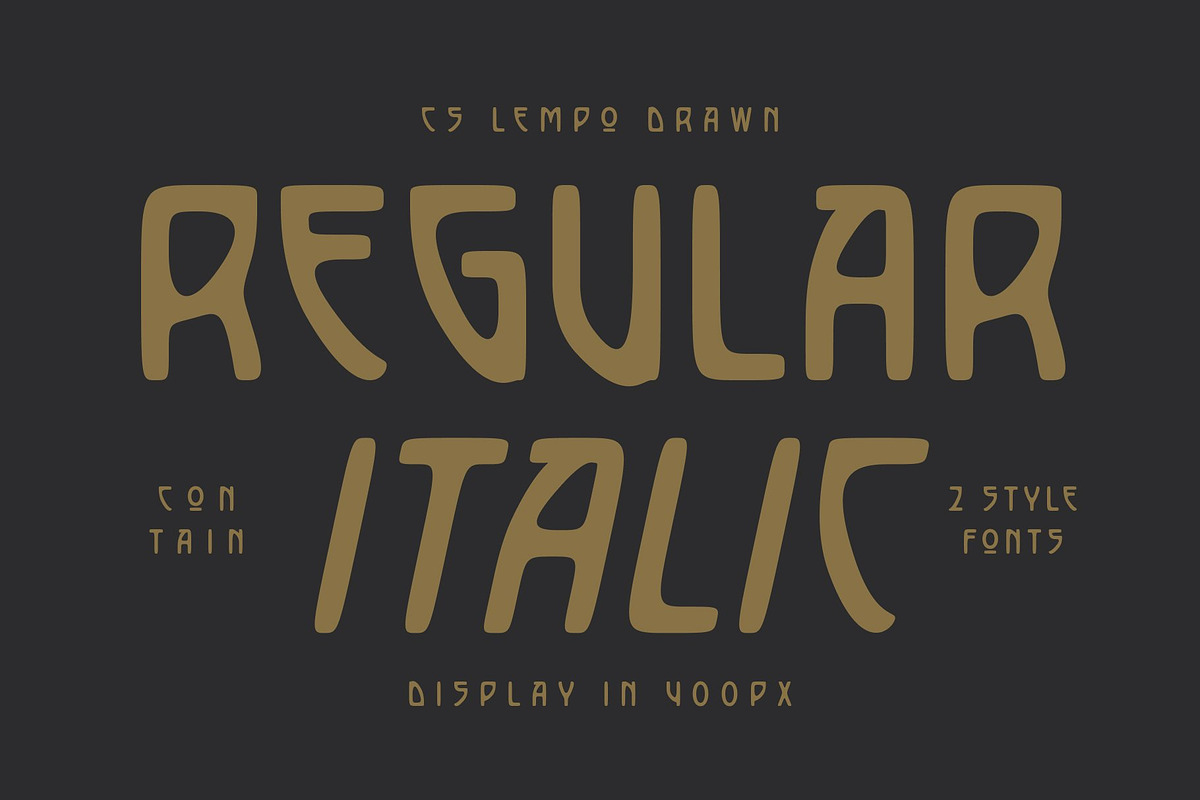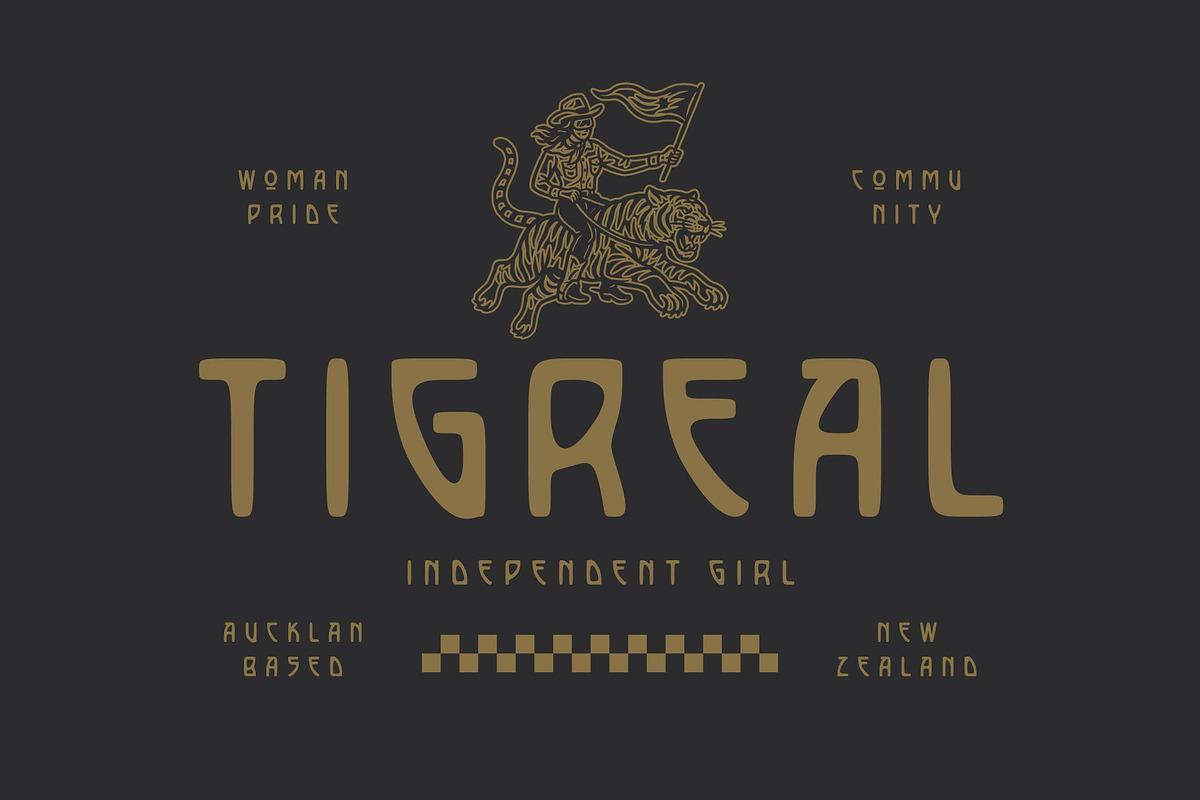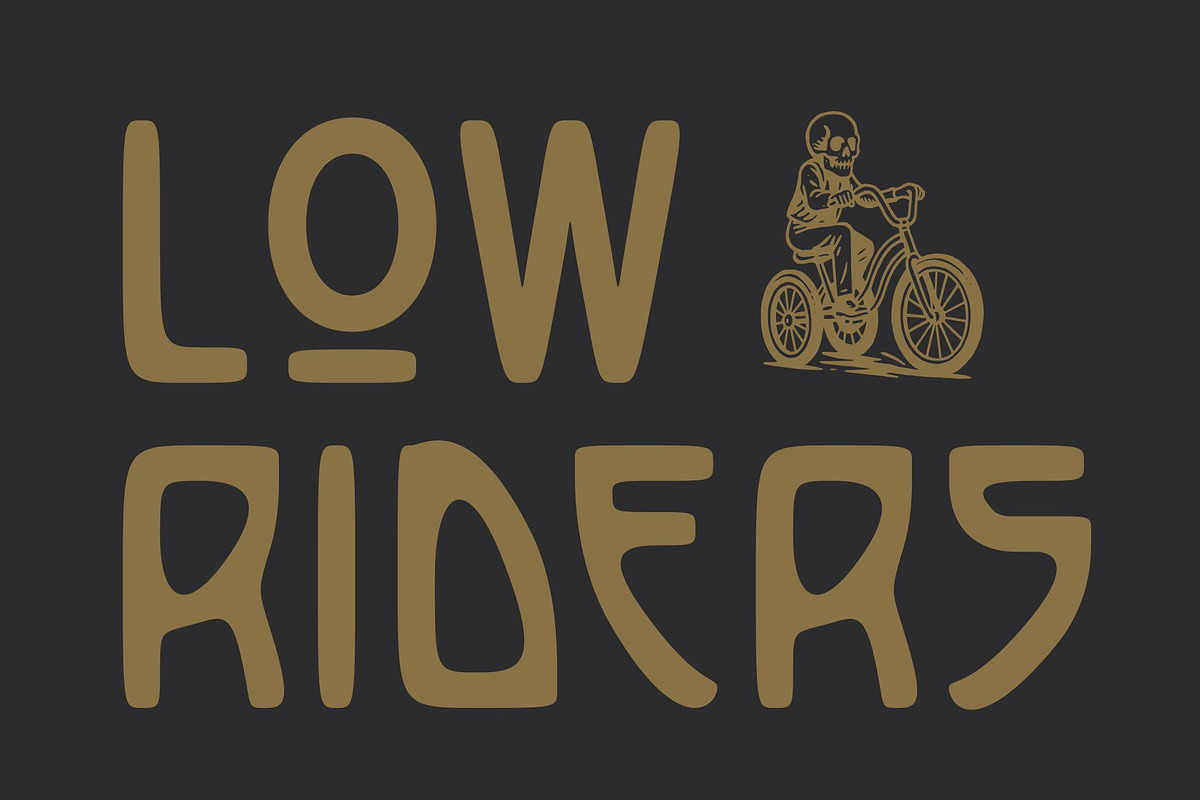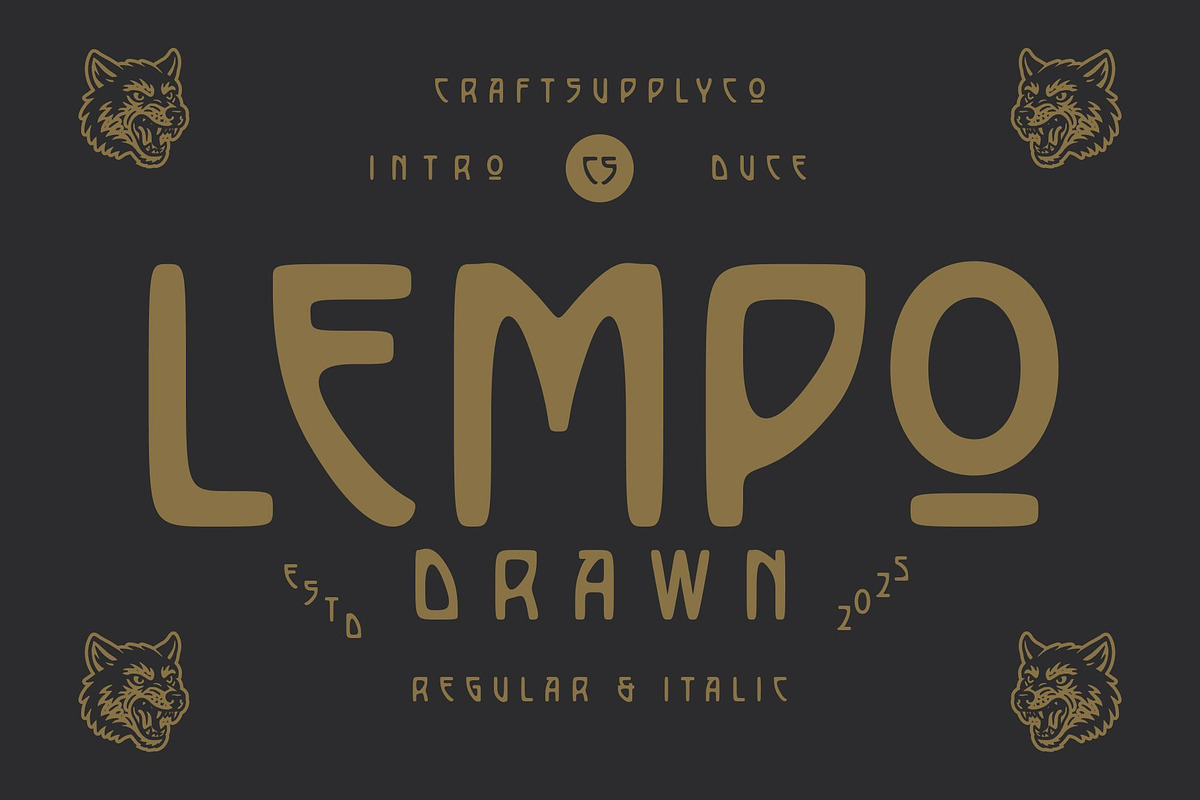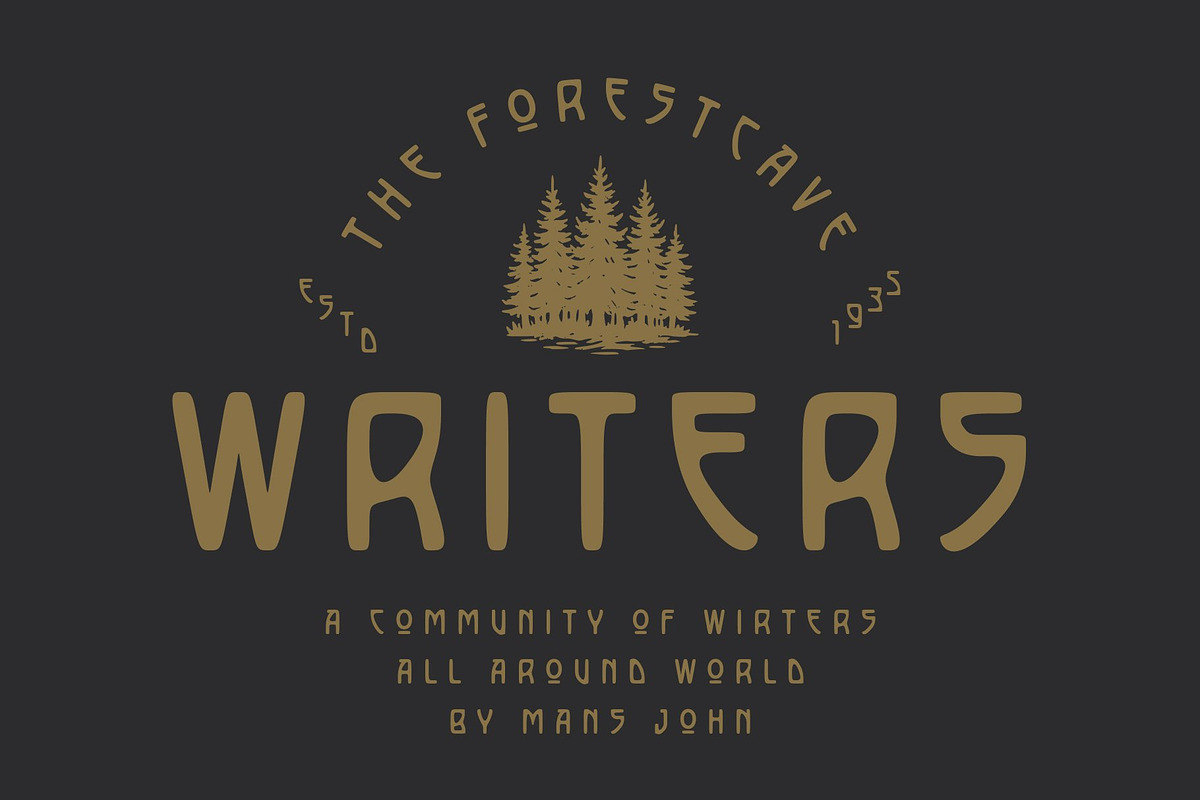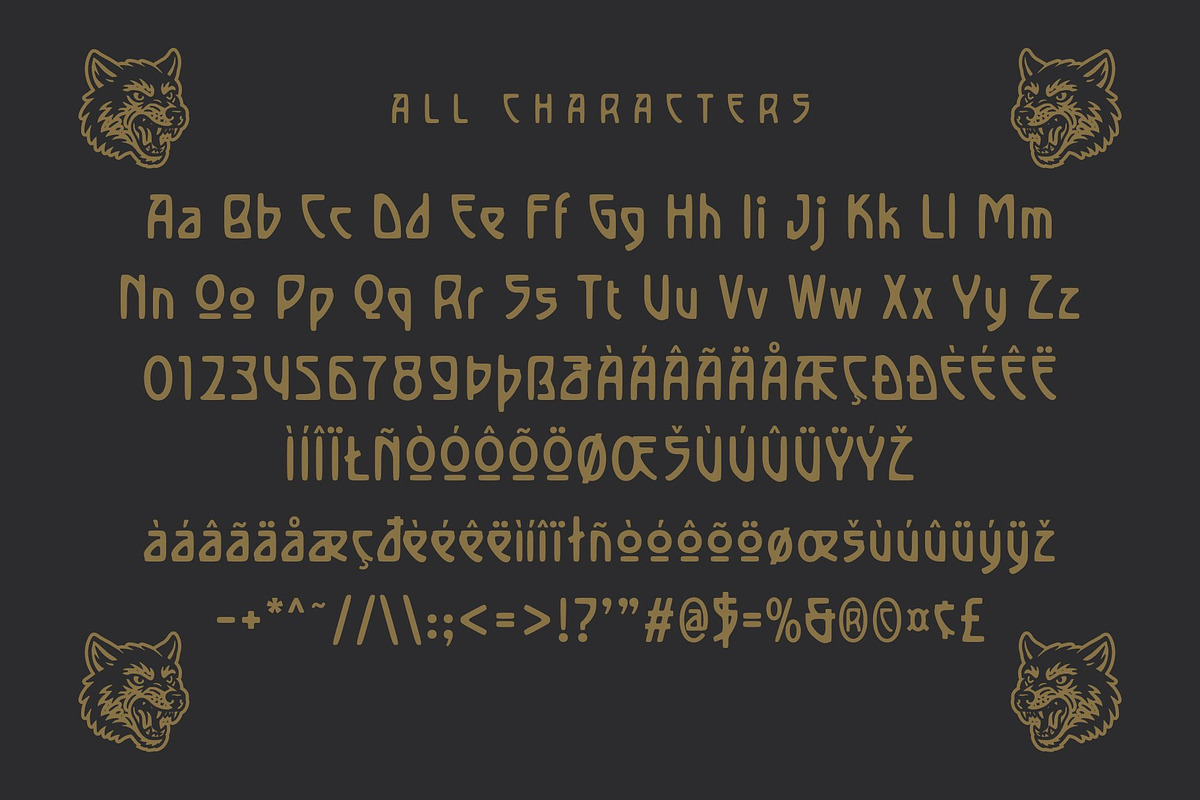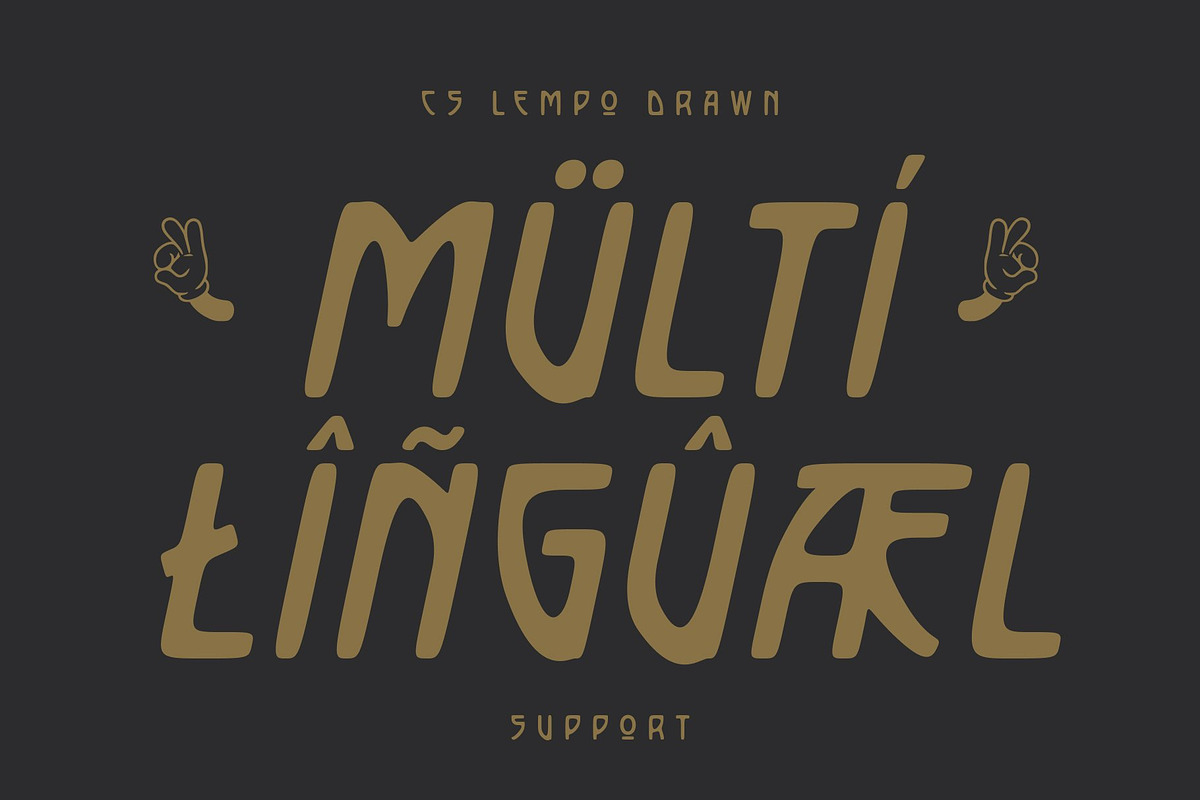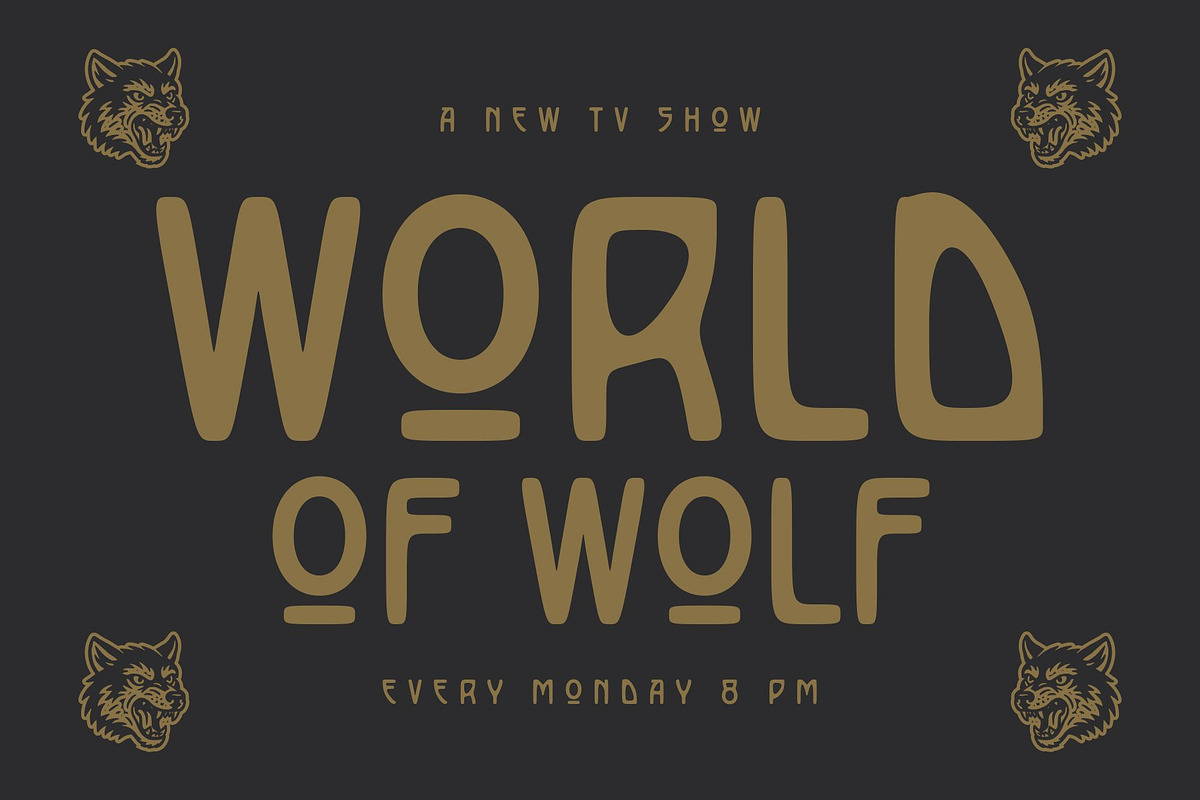
CS Lempo Drawn
CS Lempo Drawn – Art Deco-Inspired Typeface with Retro Charm
Sophisticated Art Deco Design with Timeless Appeal This is a typeface inspired by the elegance and bold aesthetics of the 1920s Art Deco movement. Its geometric precision and striking uppercase characters convey sophistication and retro glamour, making it perfect for designs that demand a vintage yet stylish presence.
Bold and Geometric Letterforms for Maximum Impact The font’s clean, sharp lines and structured shapes create a sense of strength and elegance. Each letter embodies the architectural precision of Art Deco design, ensuring your text stands out with confidence and clarity, whether in large headlines or high-end branding applications.
Retro Personality with Hand-Drawn Texture Enhanced with a drawn effect, this font introduces a handcrafted, organic quality that adds warmth and personality. This subtle texture gives the font a nostalgic, retro feel while maintaining modern legibility and balance, creating a perfect fusion of classic style.
Perfect for Luxury Branding, Editorials, and Vintage Projects This font excels in vintage inspired and high-end designs. Ideal for logos, titles, invitations, posters, editorial layouts, and luxury packaging, it delivers a bold, retro look with artistic charm. Its combination of Art Deco elegance and hand-drawn texture ensures your projects communicate timeless sophistication with a modern, distinctive twist.